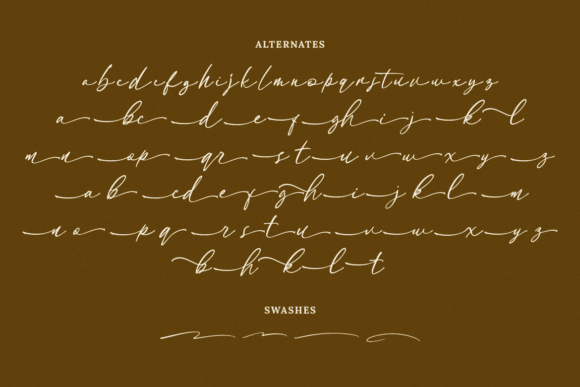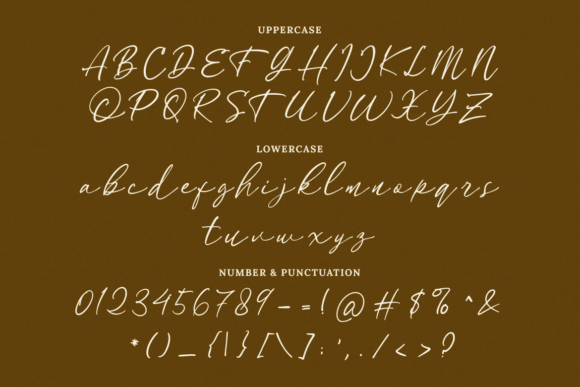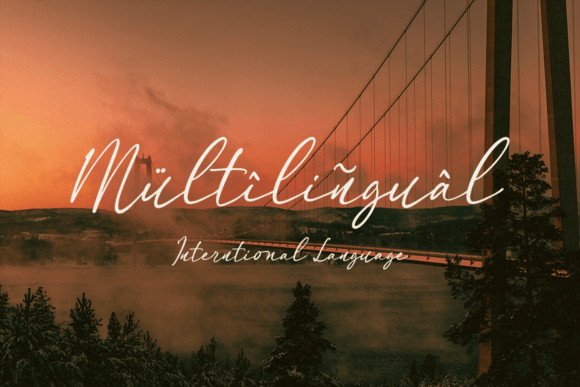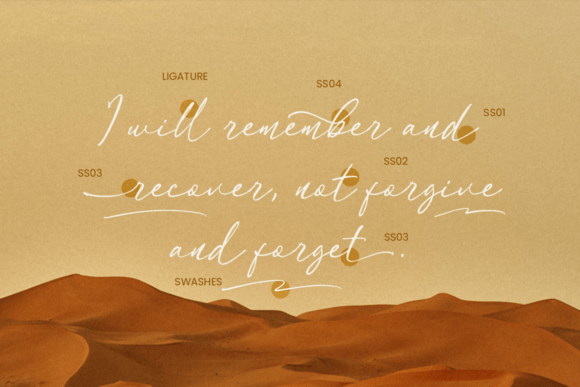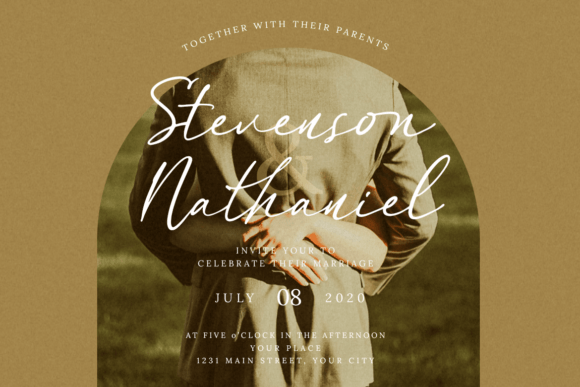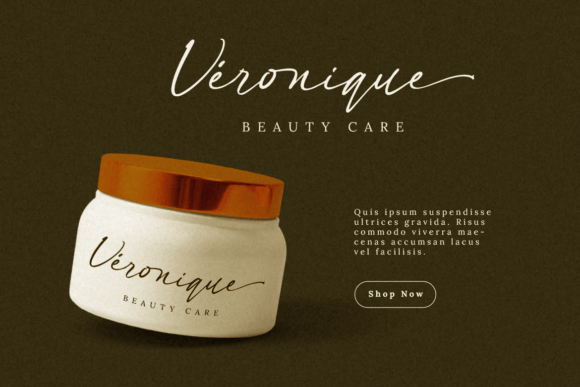
Introducing Forttuna Font: The Epitome of Elegance and Fortune
Beautiful, natural, and feminine are three words that describe Forttuna, a stunning font that embodies the essence of good fortune and luck. Just like the goddess Fortuna, who is revered for her power to bestow prosperity and happiness, this exquisite font is designed to bring a touch of elegance and sophistication to various design projects. Whether you’re working on a business or personal endeavor, Forttuna is the perfect choice to add a stylish handwritten touch.
Forttuna font is incredibly versatile, making it suitable for a wide range of applications. From branding projects and logos to wedding designs, social media posts, advertisements, product packaging, labels, and more, this font can be used to create visually appealing and cohesive designs. Its versatility stems from its beautiful, flowing script that exudes a sense of luxury and refinement, making it ideal for designers and crafters looking to elevate their work.
The Beauty of PUA Encoding
One of the standout features of Forttuna font is its PUA (Private Use Area) encoding. This means that users can access all the glyphs and swashes with ease, allowing for greater creative freedom and flexibility. PUA encoding enables designers to access a wide range of characters, including special ligatures, stylistic alternates, and swashes, which can be used to add a personal touch to designs. With Forttuna, you can effortlessly create stunning text-based designs that are sure to leave a lasting impression.
Design Inspiration and Ideas
Forttuna font draws inspiration from the classic scripts of the past, with a modern twist that makes it perfect for contemporary designs. The font’s flowing lines and curves evoke a sense of movement and fluidity, making it ideal for designs that require a touch of dynamism. Designers and crafters can use Forttuna to create a wide range of designs, including:
- Wedding Stationery: Use Forttuna to create beautiful wedding invitations, save-the-date cards, and ceremony programs that exude romance and sophistication.
- Branding and Logos: Forttuna’s elegant script makes it perfect for branding projects, including logos, business cards, and letterheads.
- Social Media Graphics: Add a touch of elegance to social media posts, including Instagram stories, Facebook posts, and Twitter headers.
- Product Packaging: Use Forttuna to create eye-catching product labels, packaging, and point-of-sale displays that stand out on store shelves.
Why Choose Forttuna Font?
With so many fonts available, why choose Forttuna? Here are just a few reasons why designers and crafters love this beautiful font:
- Unique and Elegant: Forttuna’s script is both unique and elegant, making it perfect for designs that require a touch of sophistication.
- Highly Versatile: Forttuna can be used for a wide range of design projects, from branding and advertising to wedding stationery and product packaging.
- PUA Encoded: Forttuna’s PUA encoding makes it easy to access all the glyphs and swashes, allowing for greater creative freedom.